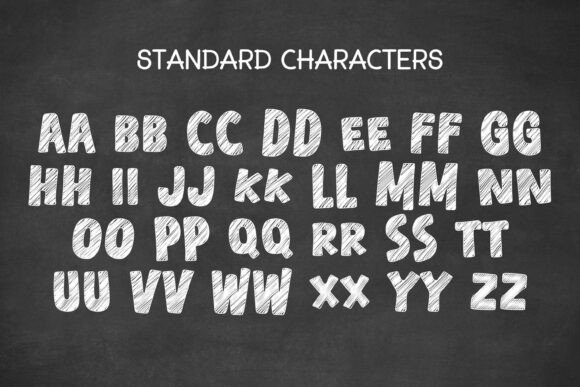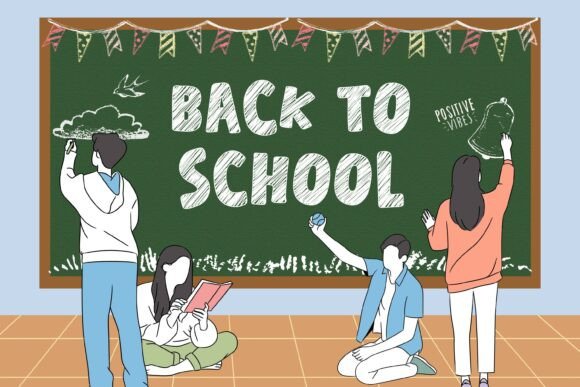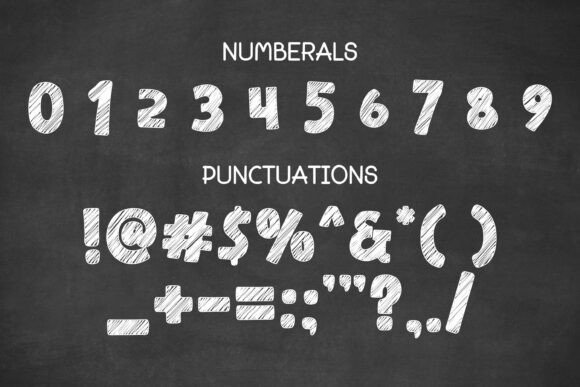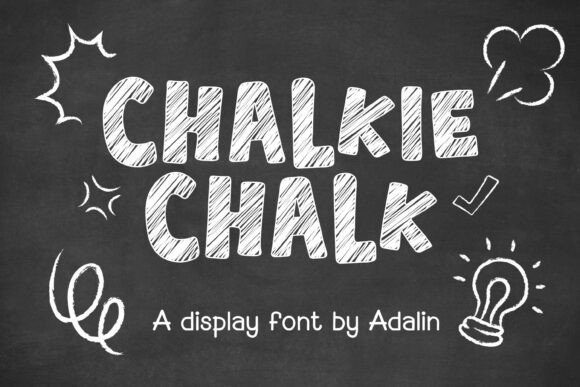
Unlocking the Magic of Childhood Learning with Chalkiechalk Font
Who among us hasn’t been captivated by the simple yet endearing sight of a child’s scribbled chalkboard doodle? Perhaps it was the squiggly lines, the imperfect letters, or the joyful abandon of a young mind at play. Whatever the reason, there’s something undeniably charming about the raw, unbridled creativity of childhood.
Designers looking to tap into this same sense of whimsy and playfulness can now do so with the Chalkiechalk Font, a delightful display font that perfectly captures the look and feel of hand-drawn chalk on a blackboard. With its bold, rounded letterforms and diagonal sketch lines, this font is an absolute must-have for any project that requires a fun, informal touch.
Whether you’re a teacher, a school administrator, or simply a designer looking to add a bit of personality to your work, the Chalkiechalk Font is an invaluable addition to your toolkit – and it’s sure to bring a smile to the faces of kids and adults alike!
Chalkiechalk Font Key Features
- Font Style: Handwritten, Casual, Chalkboard
- Unique Characteristics: Distressed texture, rough edges, and subtle imperfections to give a vintage, chalkboard feel
Designer Review: Chalkiechalk Font
Overall, I’m quite impressed with the Chalkiechalk font. It’s a beautiful, hand-drawn font that captures the essence of chalkboard writing ✨. The designers have done an excellent job of creating a font that’s both elegant and playful, making it perfect for a variety of projects.
- Unique and creative design ✨ – The Chalkiechalk font is unlike any other font I’ve seen. Its unique, hand-drawn style makes it stand out from the crowd.
- Perfect for creative projects ✨ – This font is ideal for projects that require a touch of whimsy and personality, such as children’s books, menus, and signage.
- High-quality glyphs ✨ – The font includes a wide range of glyphs, including uppercase and lowercase letters, numbers, and punctuation marks.
However, there are a few limitations to consider ⚠️:
- Limited language support ⚠️ – Unfortunately, the Chalkiechalk font only supports a limited range of languages, making it less suitable for multilingual projects.
- No bold or italic weights ⚠️ – While the font is beautiful in its regular weight, it would be great to have bold and italic weights available for added emphasis.
Overall, I think the Chalkiechalk font is a great addition to any designer’s toolkit. Its unique design and high-quality glyphs make it perfect for creative projects. While there are a few limitations, I think the benefits far outweigh the drawbacks.
The Chalkiechalk Font is ideal for creating playful and whimsical designs, such as:
- Children’s educational materials
- Food and drink labels
- Artistic and creative projects